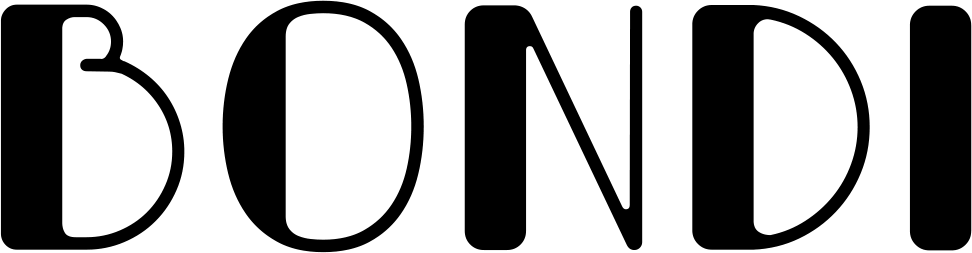
Bondi Font
Designed byAlejo Bergmann
If your content lacks classical design and you want to give it an outdated style, then you need to use a retro font. For that specific requirement, we suggest Bondi, which is a great choice for posters, cards, websites, branding, logos, etc.
This font comes with an awesome collection of characters that contains the uppercase of the alphabet, the numbers, and the punctuation marks except for the lowercase.
Bondi is a display font designed by Alejo Bergmann. It contains all caps letters, numerals and symbols. This font perfectly suites for variety display purposes, including logotypes, badges and labels, headlines and banners, prints and much more.